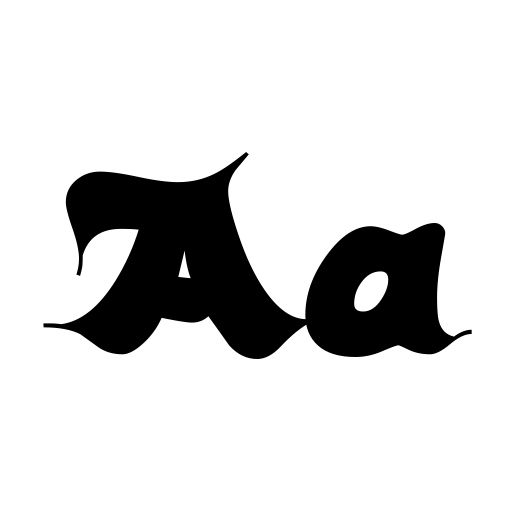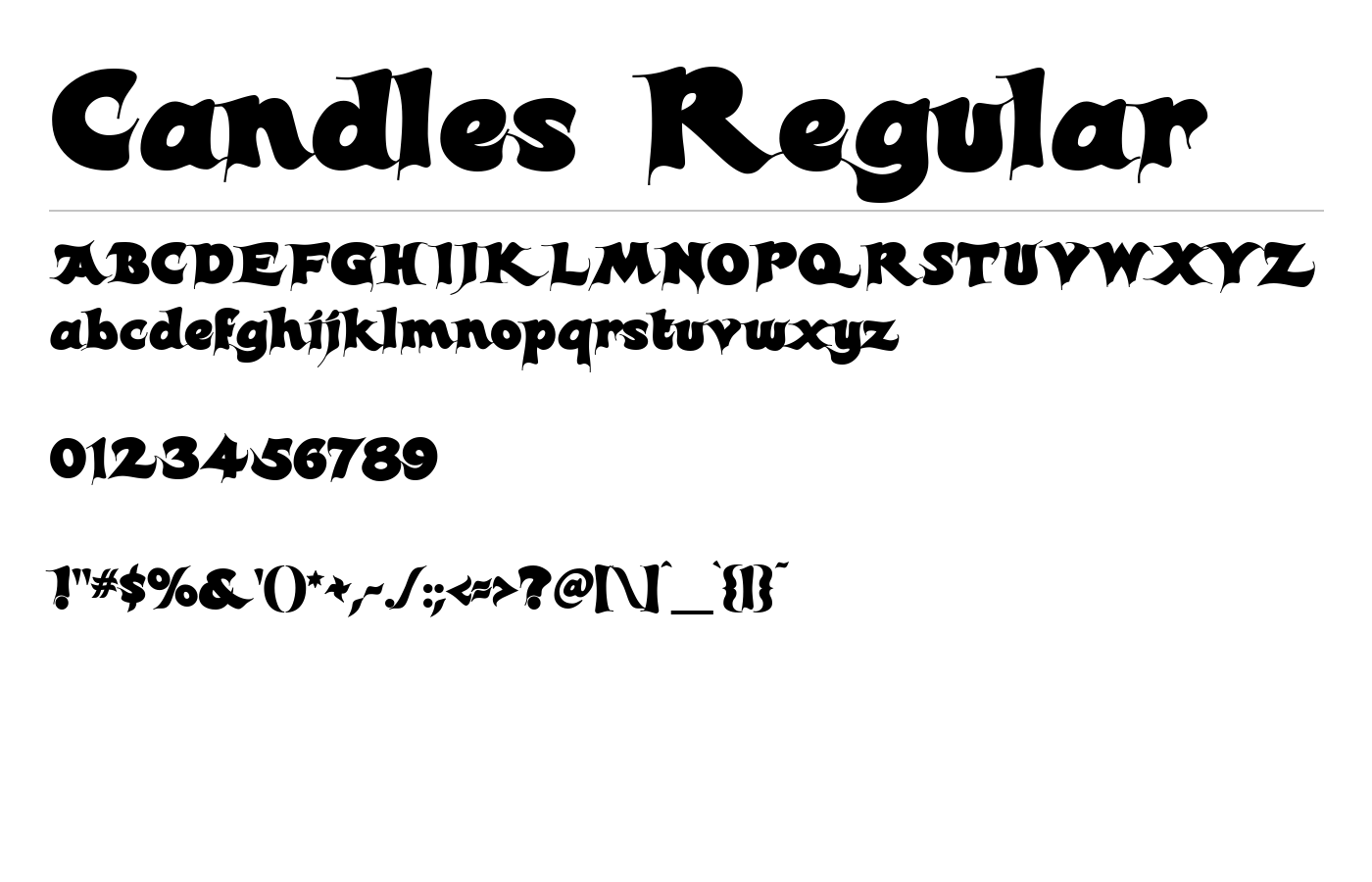
Candles Regular is a bold, decorative serif font with a playful and slightly spooky character, featuring thick strokes and irregular, dripping shapes that evoke melting wax or candle flames. Its heavy weight and quirky letterforms make it perfect for creative headlines, themed posters, and Halloween or fantasy branding where a fun yet mysterious mood is desired. This font works best in display use, adding a distinctive, eye-catching style to designs needing a touch of whimsical charm.
Candles Regular Font
About Candles Regular Font